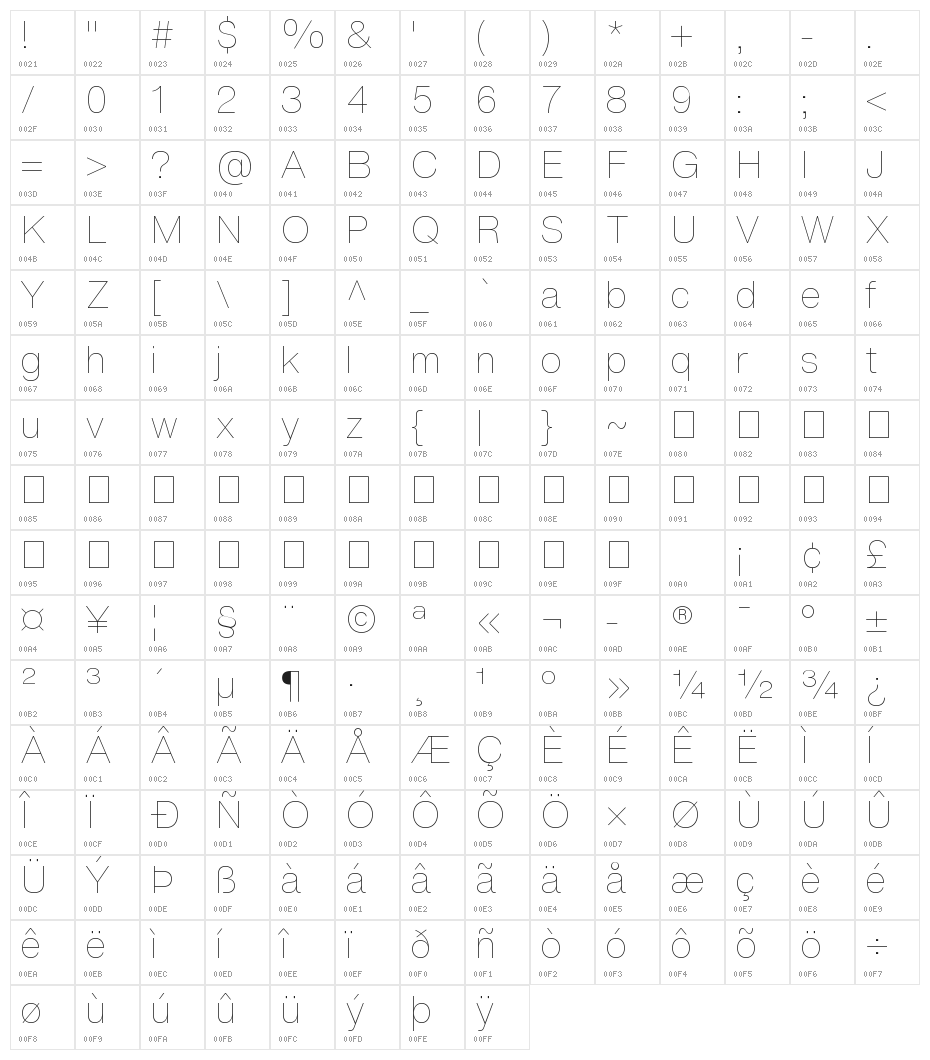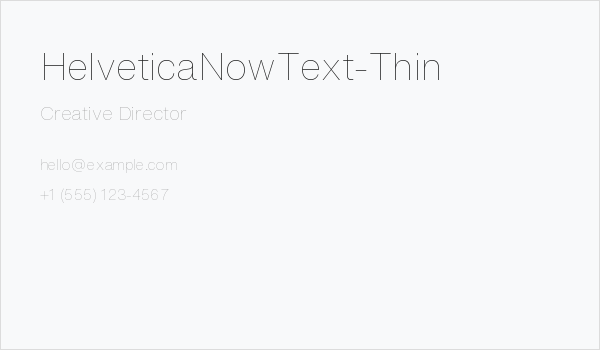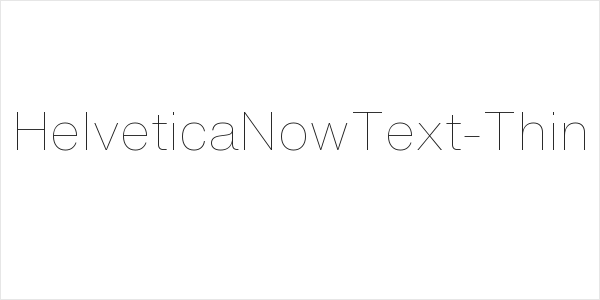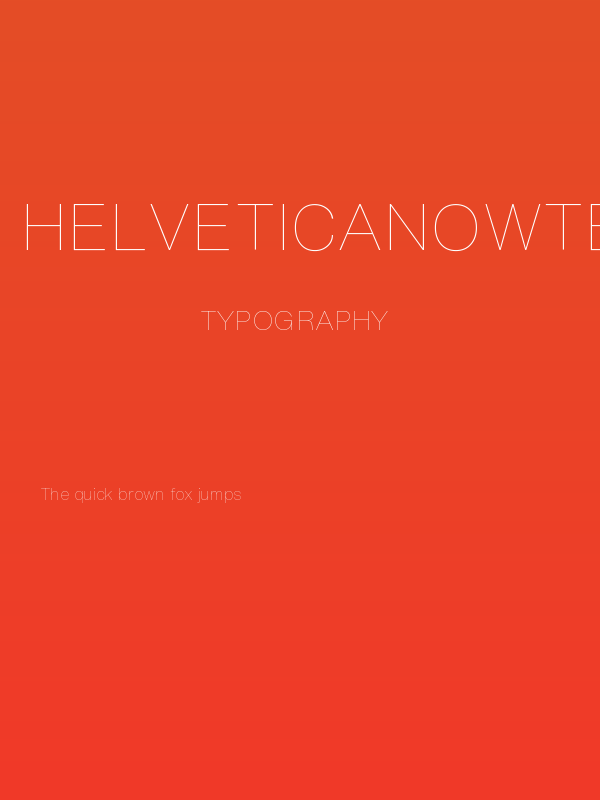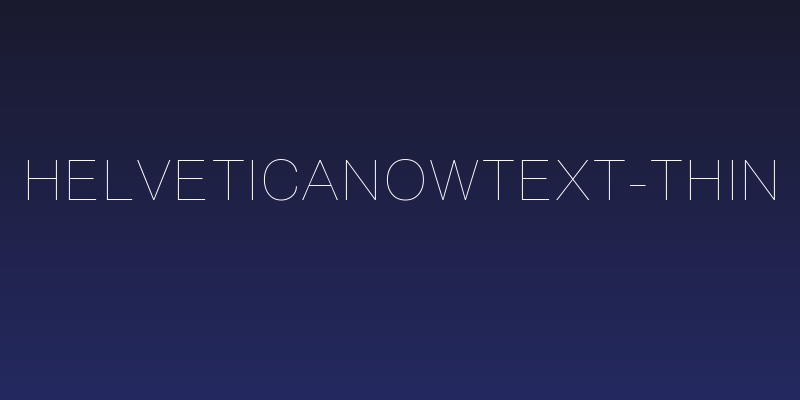
HelveticaNowText-Thin Font
HelveticaNowText-Thin Description
This font exhibits a clean and modern aesthetic with its thin, uniform strokes and minimalistic design. The characters are well-proportioned, offering a sense of balance and clarity. Its sans-serif nature contributes to its contemporary look, making it versatile for various design applications. The font maintains a consistent stroke width throughout, providing a sleek and elegant appearance. Its simplicity and readability make it suitable for both digital and print media, ensuring legibility across different sizes and resolutions. The spacing between characters is carefully considered, offering a normal and comfortable reading experience.
| Proposed Projects | Ideal for use in minimalist branding, modern web design, editorial layouts, and corporate communications. |